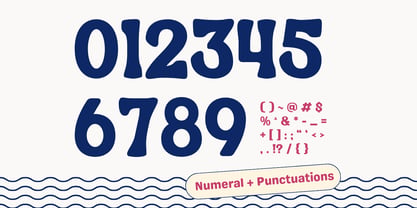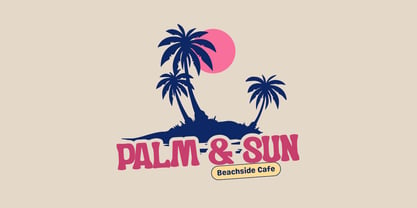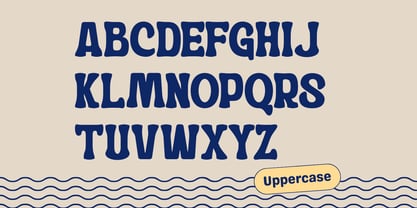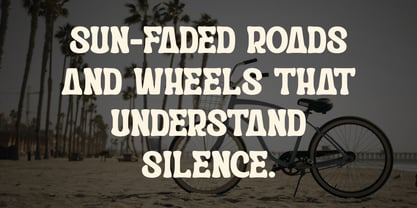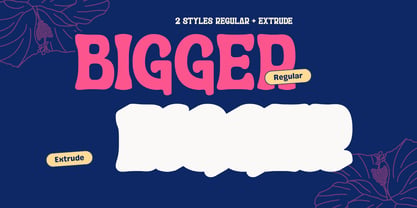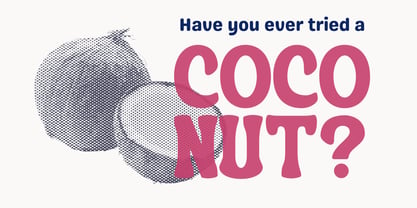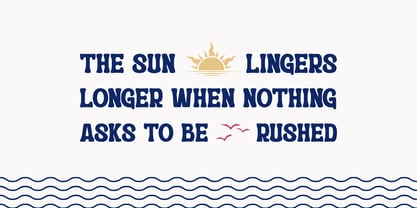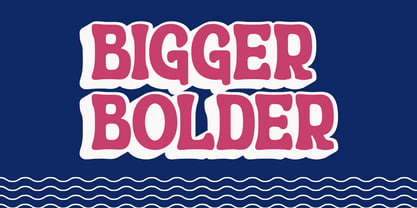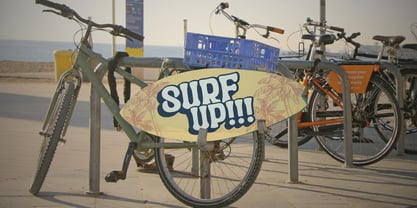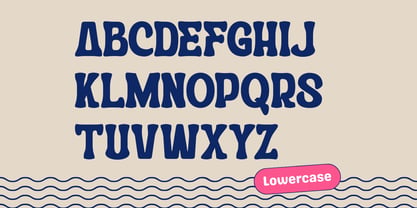
Calyra Retro
by Nirmana Visual
The Calyra Retro Font Family was designed by Sigit Dwipa and published by Nirmana Visual. Calyra Retro contains 2 styles and family package options. More about this family
Calyra Retro is a bold and expressive display font inspired by vintage surf culture and coastal vibes. Designed with a powerful extrude style, it creates a striking dimensional look that instantly stands out on surfing logos, beachwear branding, stickers, posters, and merchandise. Its smooth curves and retro character bring a wave of nostalgia while keeping a fresh, energetic feel. Perfect for brands that want to capture sun, sea, and adventurous spirit in every design.